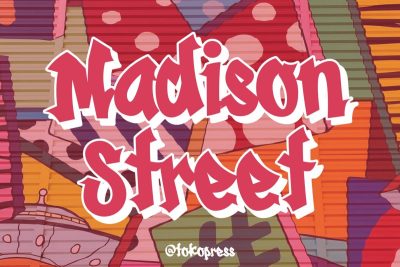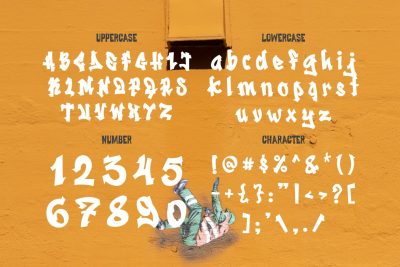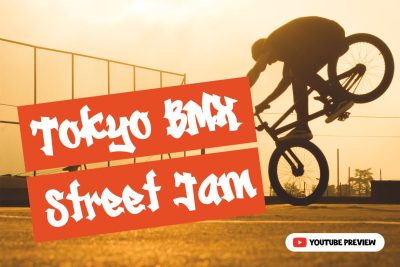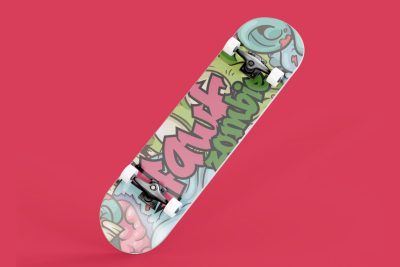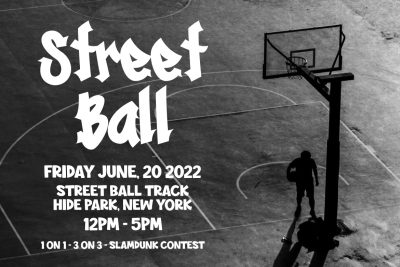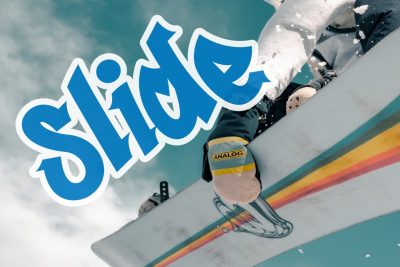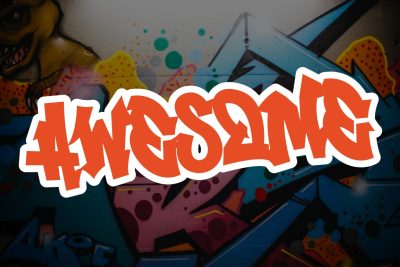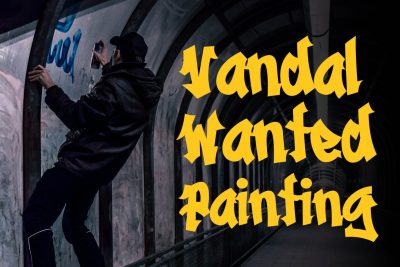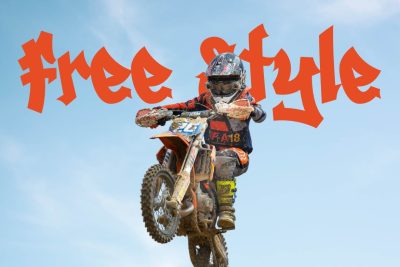
Graffiti Font Madison Street combines bold style with an urban edge, making it ideal for designs that stand out. It uses thick, rounded letters with sharp edges and a slightly uneven baseline, creating a lively, hand-painted graffiti effect. The vibrant pink letters have a white outline, adding contrast and depth against the textured background. Each letter has a dynamic, exaggerated style, reminiscent of classic graffiti tags. The color scheme and composition create a playful, eye-catching look that suits both modern and retro-styled designs.
The background enhances the fontโs energy with multicolored stripes, polka dots, diagonal lines, and abstract shapes. This visually rich font brings a touch of street culture to any design. Its bold appearance and high contrast make it perfect for designs that need to grab attention. The Madison Street graffiti font shines in posters, album covers, clothing designs, and digital media, embodying an expressive, street-inspired look. Because itโs so eye-catching, this font pairs well with vibrant color schemes, creating a cohesive, impactful design that fits urban aesthetics.
The fontโs unique style makes it versatile for different themes, whether itโs for promoting an event or enhancing product packaging. With its playful yet edgy look, the Madison Street graffiti font is perfect for projects seeking a modern, expressive tone with graffiti influences.
Graffiti Font Madison Street Best Suited For
Madison Street graffiti font is ideal for designers and brands targeting younger audiences or aiming for a creative, edgy style. Itโs especially suited for streetwear brands, album covers, skate shops, and urban-themed events. This font also shines in social media graphics, where eye-catching typography can boost engagement. Those in hip-hop, street art, or indie publishing will find this font fitting due to its connection to graffiti culture.
This font is also ideal for merchandise, such as hoodies, posters, and tote bags, where bold typography enhances the design. Graphic designers, artists, and event organizers looking for a street-style vibe will find it valuable. Content creators and influencers also use it to add personality to visuals on platforms like Instagram and TikTok. Whether used in digital content, event promotion, or printed media, this font appeals to a youthful, trend-focused audience and anyone seeking a vibrant, urban design element.